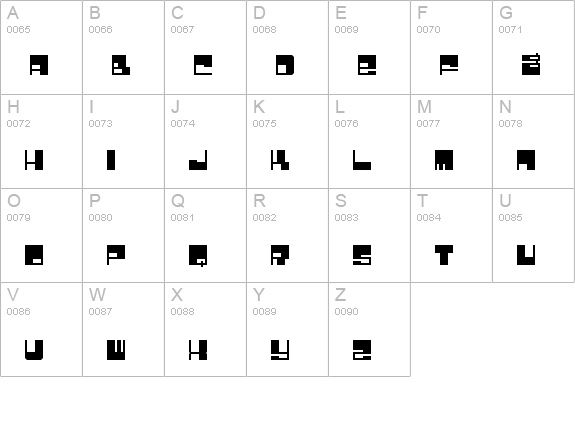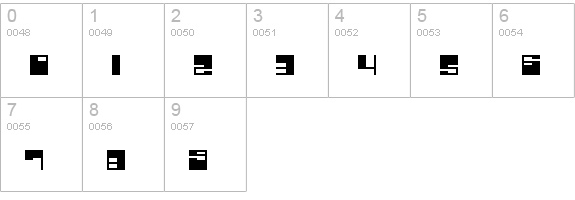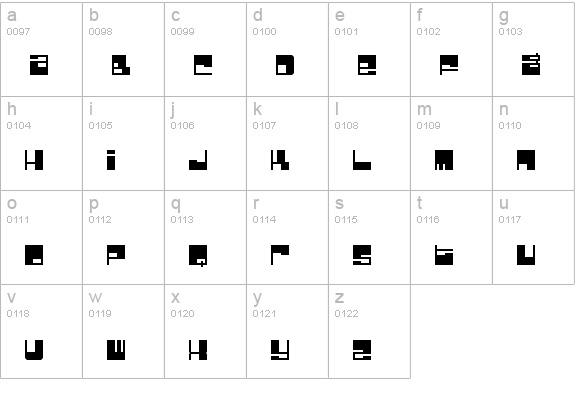
Bomb Factory Font Details
Introducing Bomb Factory font, a bold and dynamic typeface that exudes power and energy. With its explosive design and striking letters, Bomb Factory is sure to make a statement in any project. The font is perfect for headlines, posters, and branding materials that demand attention. What's even better is that Bomb Factory font is available for free download at FontsMarket.com. Now you can add this eye-catching font to your collection without breaking the bank. Don't miss out on the opportunity to elevate your designs with the bold and impactful Bomb Factory font. Download it today and let your creativity explode!